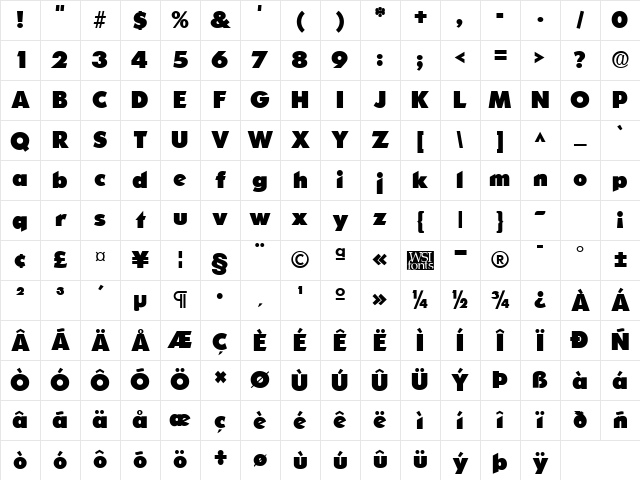
SharnayBlack Regular
Design Context for SharnayBlack
SharnayBlack is a composed and adaptable typeface that performs quietly and consistently across a wide range of design contexts.